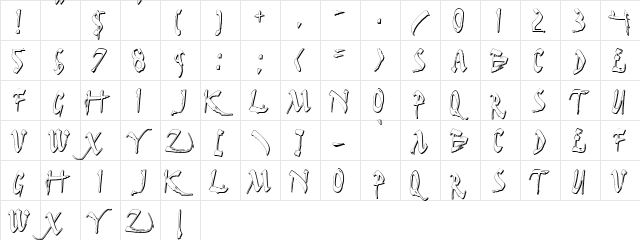
Dark Horse Shadow Shadow
Design Context for Dark Horse Shadow Typeface
Dark Horse Shadow is built around its visual character rather than neutral utility — its distinctive forms are designed to make an impression at display sizes.
Font Pairing: Pair with a clean neutral sans-serif for body copy to let Dark Horse Shadow's character lead without overwhelming the composition.
Pro Tip: Treat Dark Horse Shadow as the centrepiece of your typographic hierarchy. One strong heading set in a decorative face can carry an entire layout.